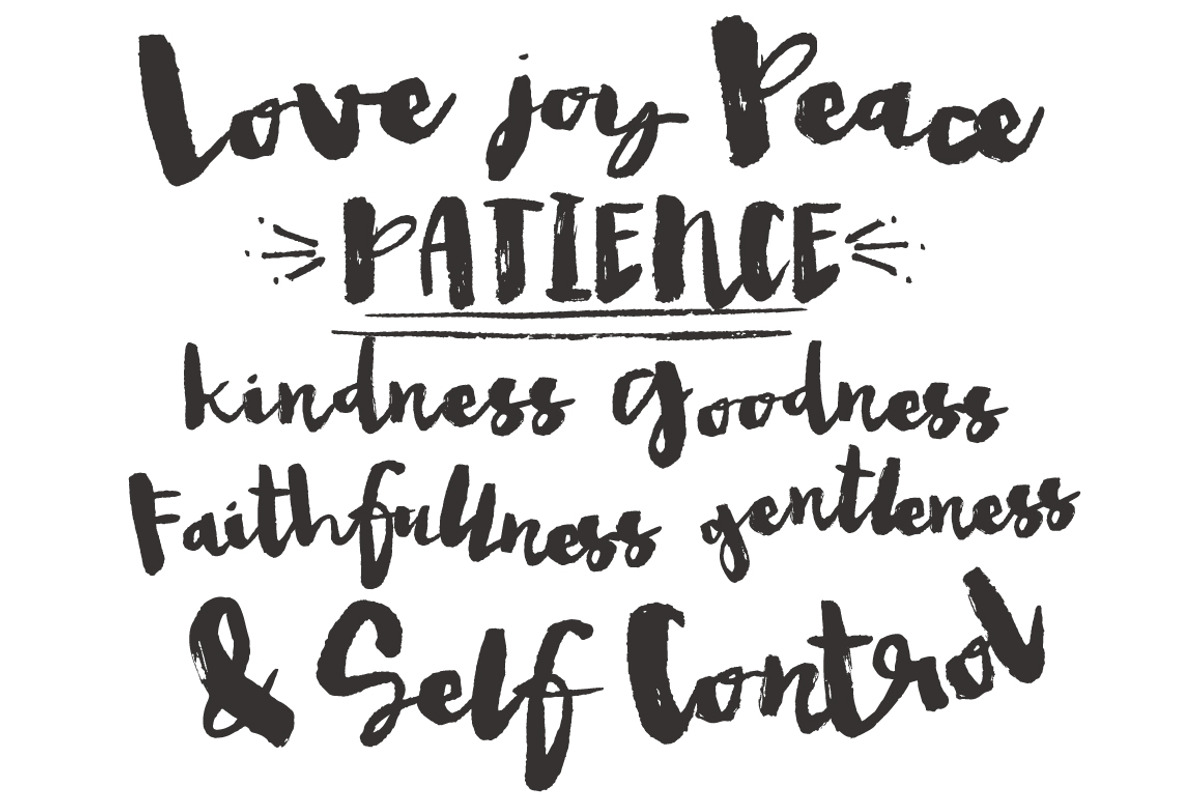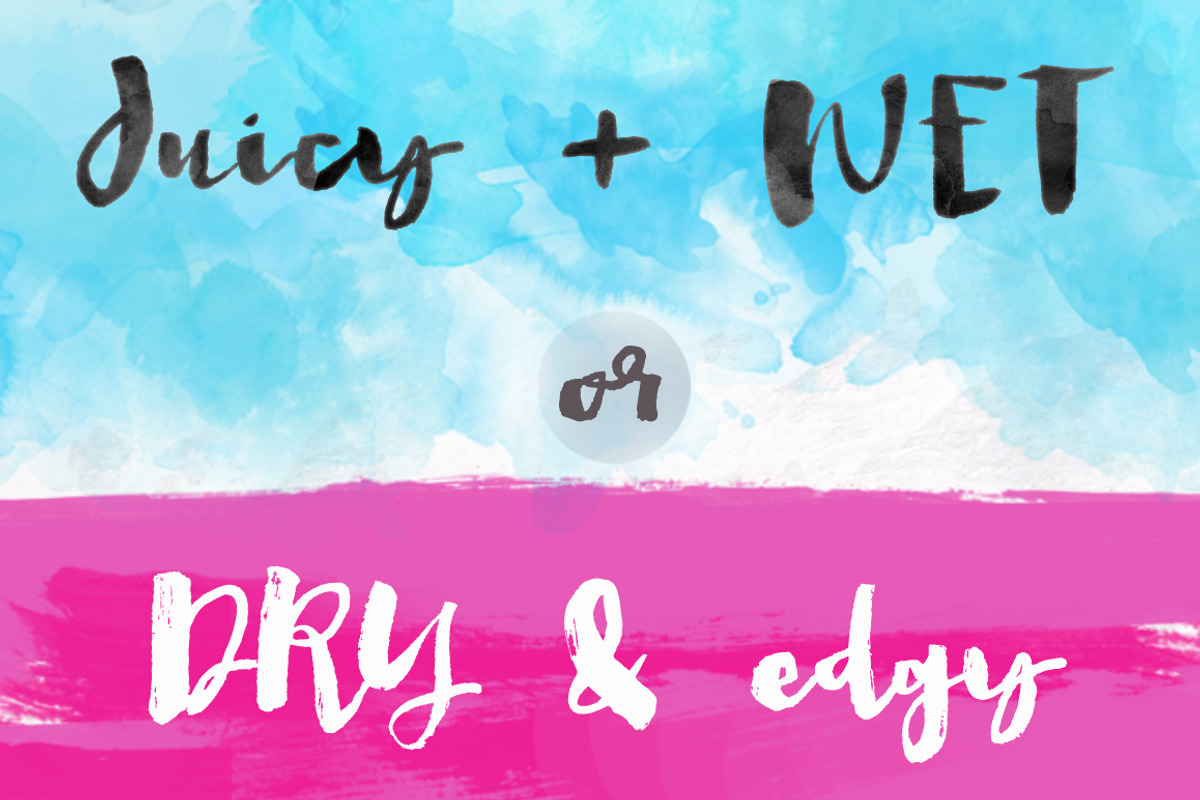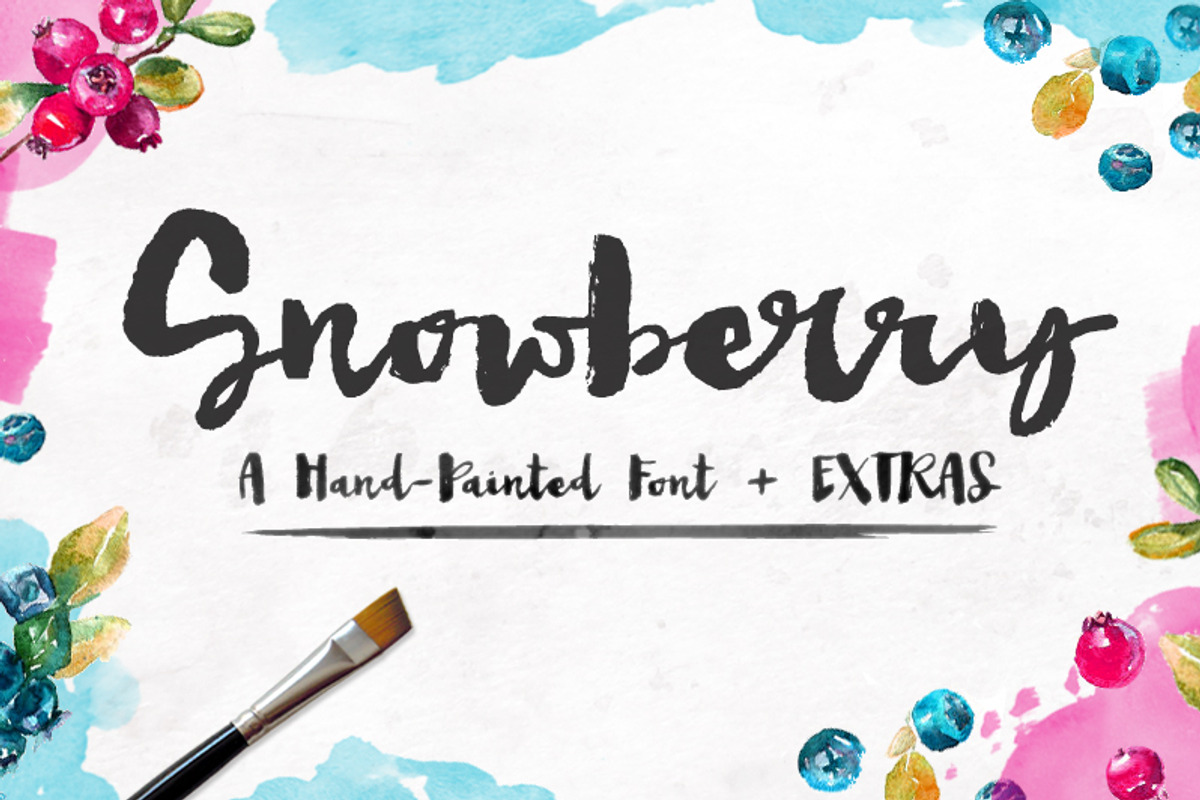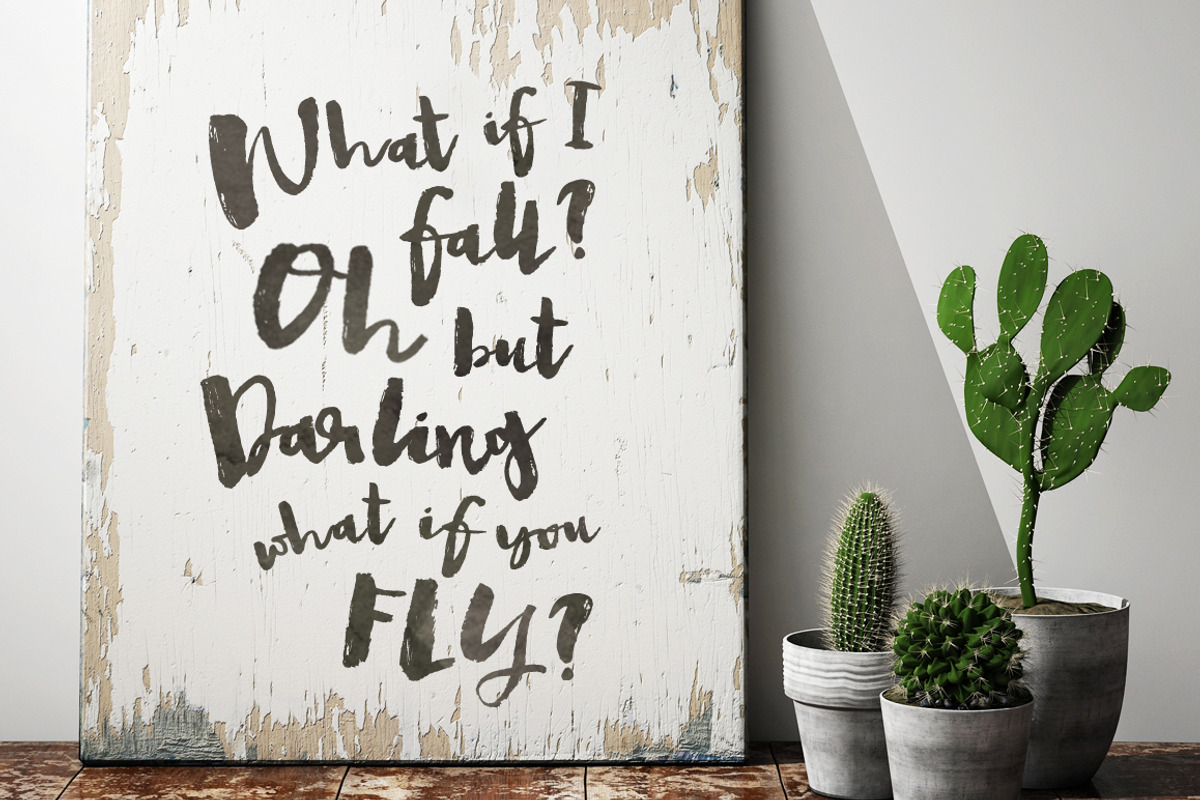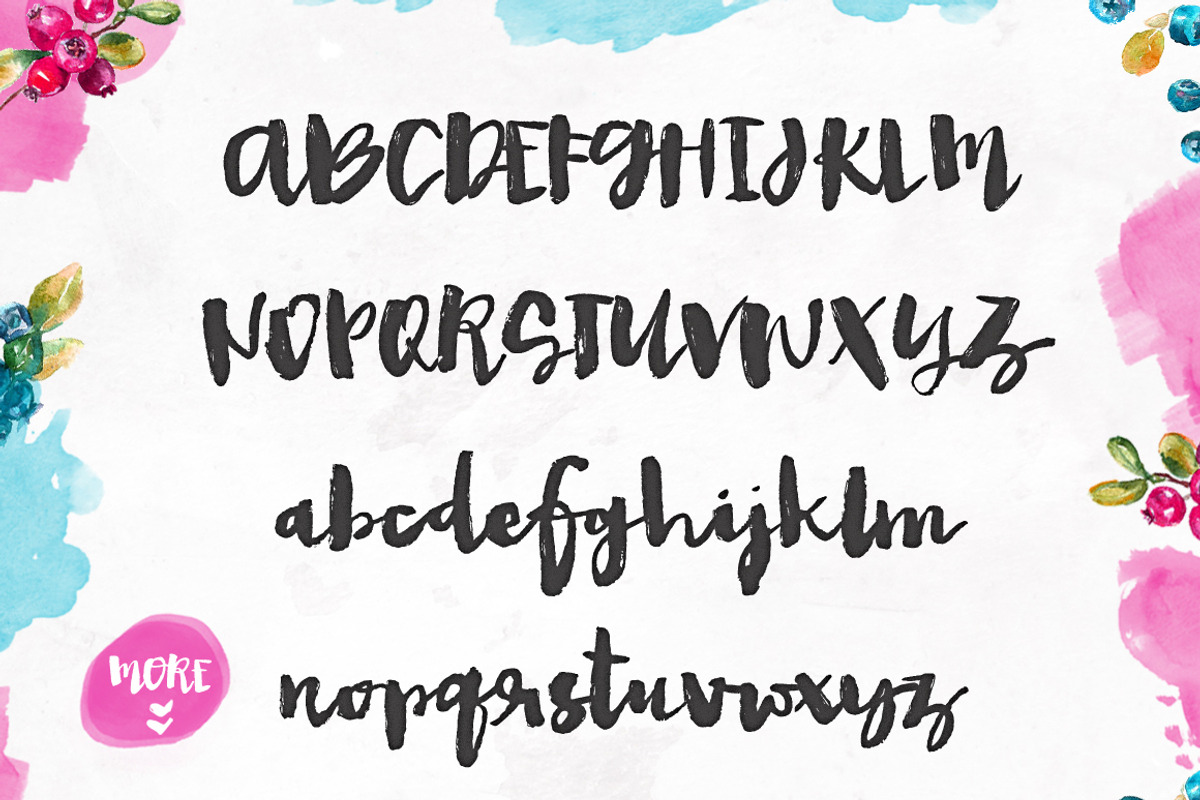
Snowberry - A Hand Painted Font
Snowberry - A Hand Painted Font by Angie Makes is a font selected for branding, posters, packaging, typography.
- Snowberry has two sets of uppercase letterforms and two varied personalities.
- Contextual alternates include several unique pairs.
Why Snowberry - A Hand Painted Font is worth a look
Snowberry - A Hand Painted Font by Angie Makes fits naturally into Branding, posters, packaging, typography.